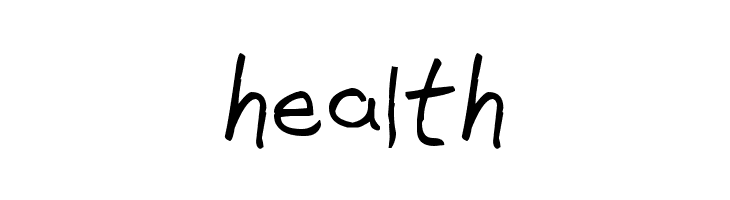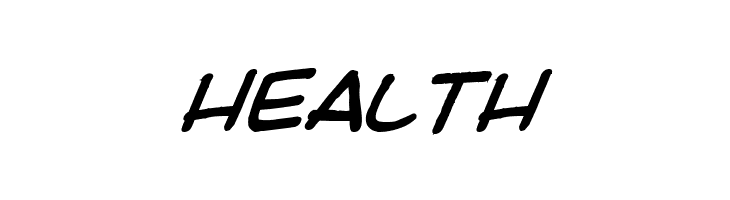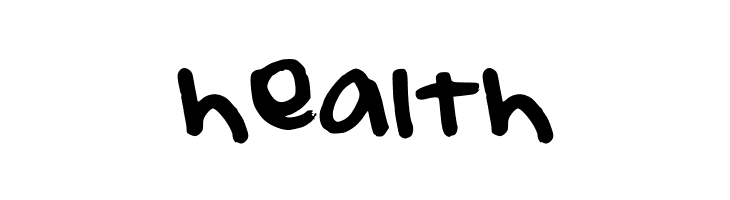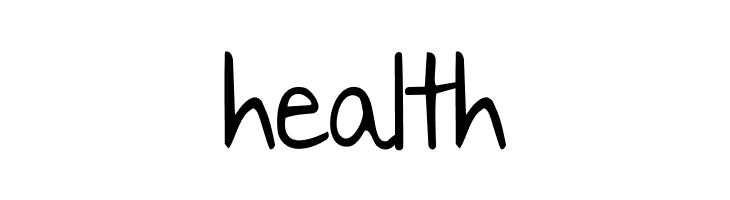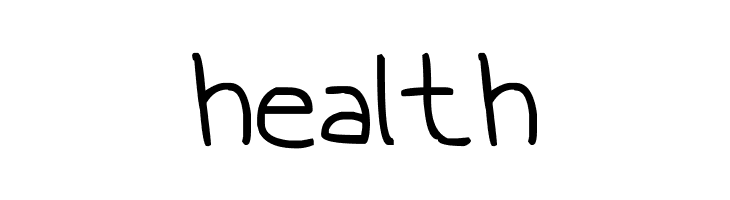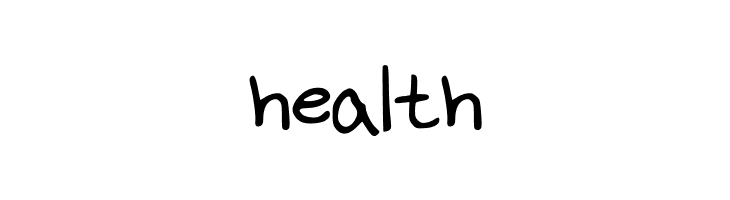
• Pea MLE
A casual, handwritten font with a playful and informal style.
• Pea Double n Jenn
A playful, informal handwritten font with a casual and friendly vibe.
• Pea Carissa
A playful, casual handwritten font with uneven strokes and a personal touch.
• Pea Dacia
A playful, informal handwritten font with uneven strokes and a lively appearance.
• Pea Amy G
A playful, casual handwritten font with an organic, lively style.
• Pea Matt & Kari
A playful, casual handwritten font with dynamic strokes.
• Pea Jia
A playful, handwritten font with a casual and dynamic style.
• Pea Amy Jo Jo
A playful, hand-drawn font with tall, narrow letters and a whimsical charm.
• LaurensErste
A playful, handwritten font with rounded, informal letterforms.
• KarlasABCStart
A playful, informal handwritten font with dynamic and irregular letterforms.